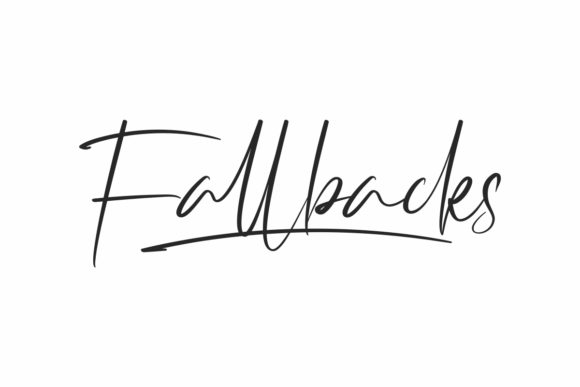
Welcome to the world of Fallbacks, a script font family that will sweep you off your feet with its elegance and charm. Created by the talented NihStudio, this font is a testament to the beauty of handwritten artistry, capturing the essence of penmanship with its flowing lines and graceful curves.
Fallbacks possesses a personality that is both timeless and contemporary, making it the perfect choice for a wide range of design projects. Its varying baseline, smooth lines, and gorgeous glyphs add a touch of sophistication and uniqueness to your designs, while its stunning alternates provide endless creative possibilities.
With Fallbacks, you have a font that is as versatile as it is visually appealing. Whether you are working on logos, branding, invitations, or any other design project that demands a touch of elegance, Fallbacks will effortlessly elevate your creations. Its ability to seamlessly blend with a variety of designs makes it a must-have for any designer looking to add a touch of sophistication to their work.
Fallbacks shines especially bright when used for pen engraving, where its delicate strokes and beautiful curves come to life, creating designs that are both eye-catching and timeless. Whether you are an experienced engraver or just starting out, Fallbacks will help you create stunning works of art that will leave a lasting impression.
But Fallbacks is not just a font for engravers; it is a versatile tool that can transform any design project into a work of art. Its ability to convey emotions and create a lasting impression makes it an excellent choice for wedding invitations, greeting cards, posters, and any other project where you want to make a statement.